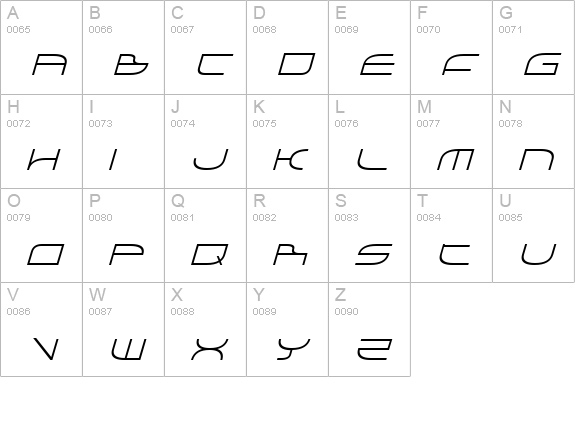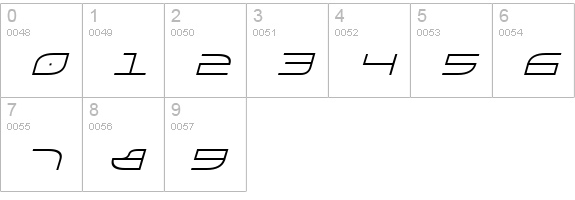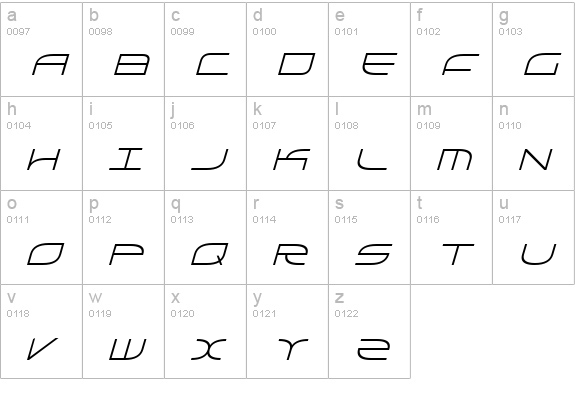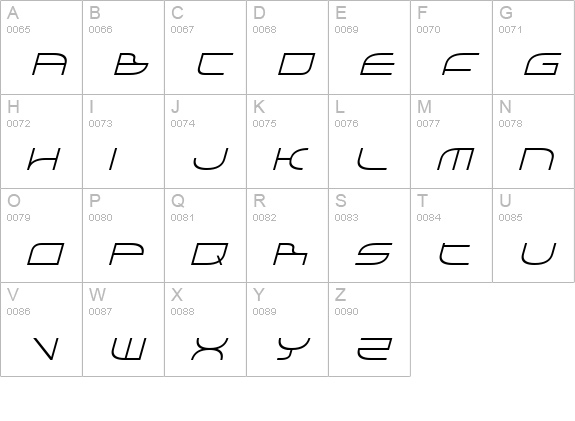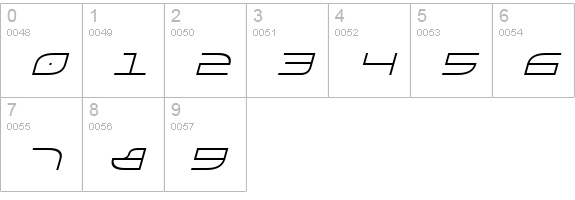
Galga Italic is a distinctive, italic variant in the Galga typeface family \xE2\x80\x94 well suited to design and typography projects.
Galga Italic is a stunning and elegant font that exudes sophistication and style. Its sleek and flowing design adds a touch of class to any project, making it perfect for use in branding, advertising, and various design applications. The italicized nature of Galga adds a sense of flair and uniqueness, setting it apart from other fonts. What makes Galga Italic even more appealing is that it is completely free to download at FontsMarket.com. This means that you can elevate your designs with this beautiful font without any cost involved. Whether you are a professional designer or a hobbyist looking to enhance your projects, Galga Italic is a versatile and eye-catching font that will surely impress. Download Galga Italic today and add a touch of elegance to your designs.